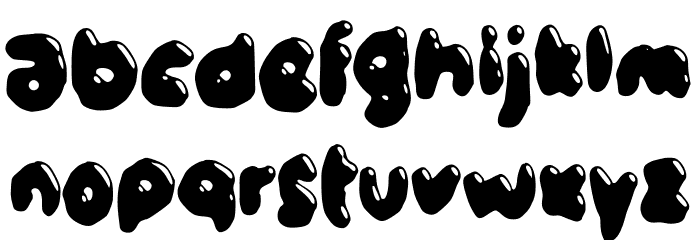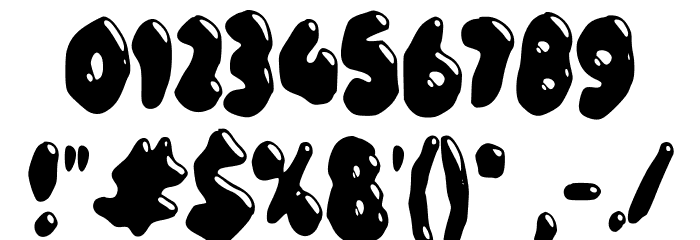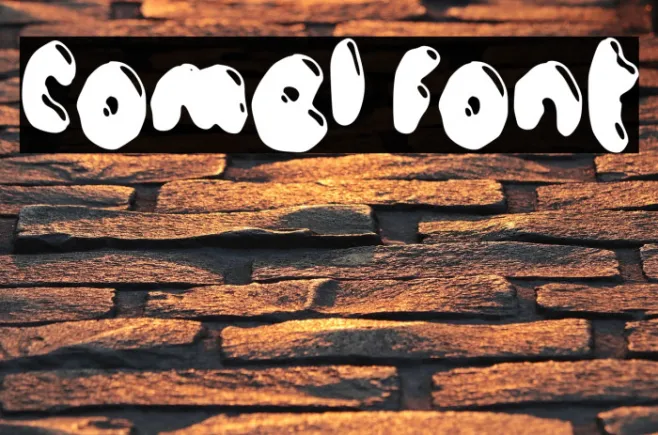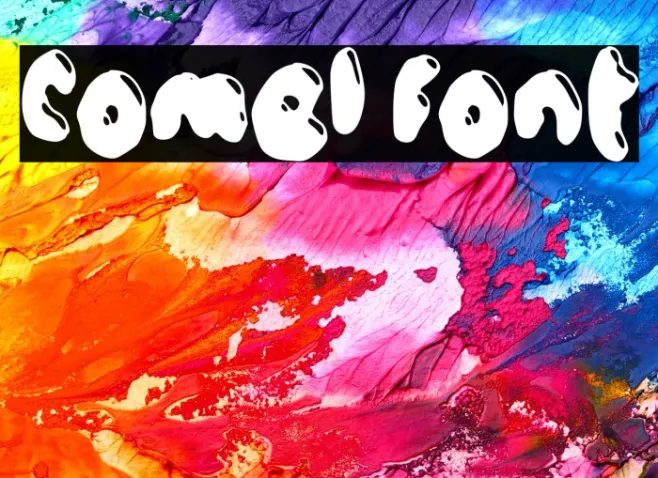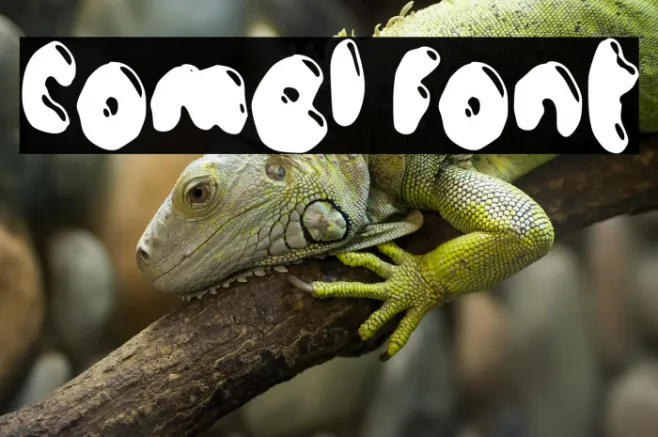
Comel Font
This playful and bold font features a bubbly, rounded style with a glossy appearance, reminiscent of liquid or jelly. The characters are thick and have a high contrast between the strokes, giving them a dynamic and eye-catching look. The font's whimsical nature makes it ideal for creative and fun projects. The letters are well-spaced, providing a balanced and harmonious appearance. The font includes a full set of uppercase and lowercase letters, numbers, and a variety of special characters, making it versatile for different design needs.
A playful, bold, and bubbly font with a glossy, liquid-like appearance.
- Font: Comel
- Proposed Projects: Ideal for children's book covers, playful branding, party invitations, and creative posters.